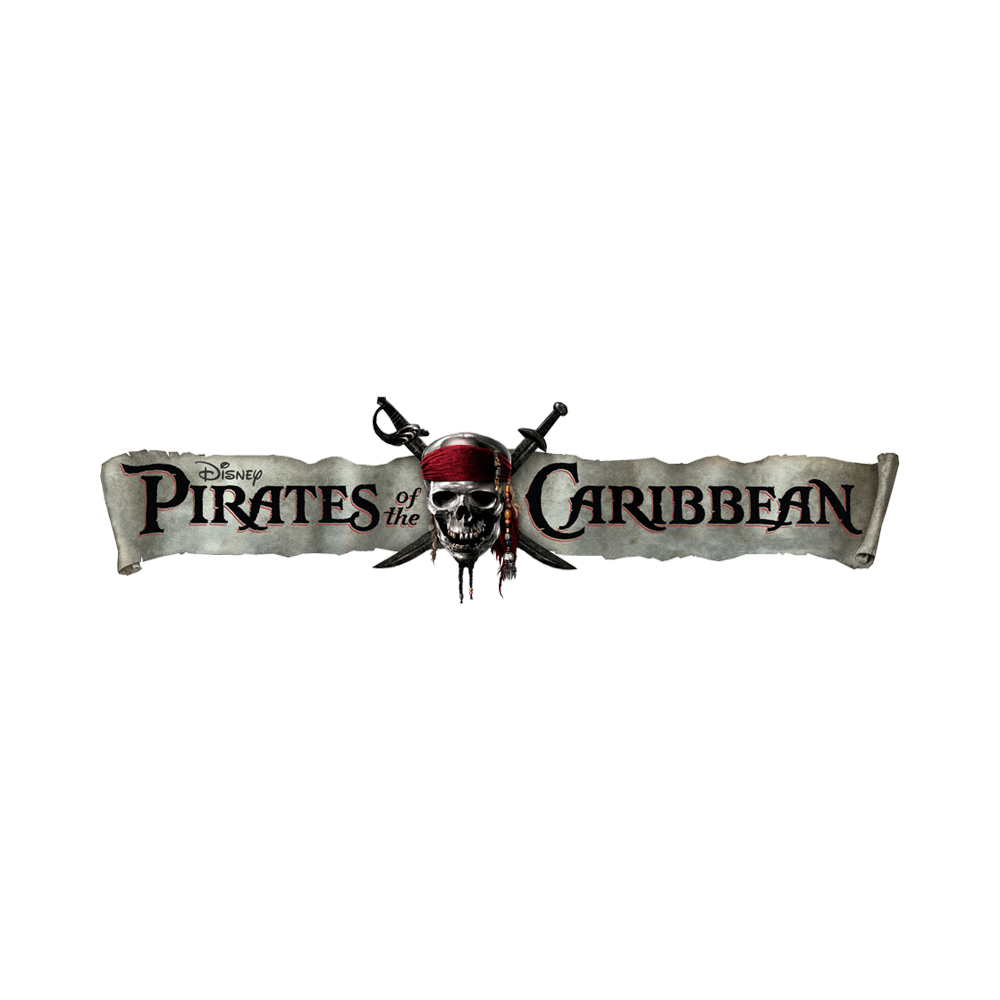
Pirates of the Caribbean Font
ActionPirates of the Caribbean is a fantasy-adventure film series that follows the swashbuckling adventures of Captain Jack Sparrow and his allies in their quest for treasure and the ultimate battle against supernatural forces.
The "Pirates of the Caribbean" movie title was created with a Gothic-style font similar to the Caribbean font by Mseek. It's a free font that can be downloaded for personal use from the Fonts Used Section.